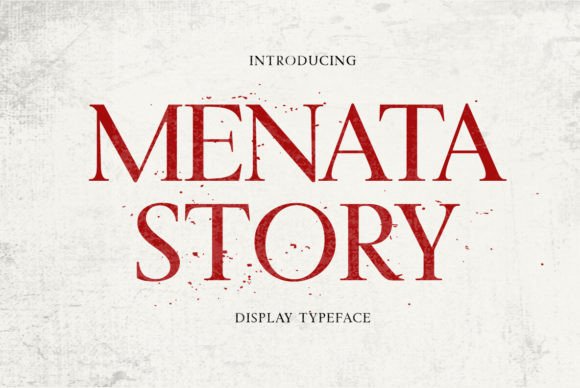
Introducing Menata Story Font - a captivating serif font family designed to evoke a sense of timeless elegance in your designs. Crafted with meticulous attention to detail, Menata Story boasts subtle nuances that elevate its classic charm while maintaining a contemporary edge.
Immerse yourself in the world of fashion with this enchanting font, where each letter dances across the canvas with grace and poise. Its delicate serifs add a touch of sophistication, like pearls adorning a silken thread, enhancing the readability and visual appeal of your creations.
Harness the power of Menata Story to craft logos that command attention, headlines that resonate, and body text that invites readers to linger. Whether you're designing for branding, web, or print, this font will elevate your message with its timeless appeal.
Embrace the boundless possibilities of Menata Story. Its classic yet versatile nature makes it an ideal choice for a wide range of design projects, from elegant invitations to captivating social media posts. Let your creativity soar as you explore the limitless potential of this typographic masterpiece.